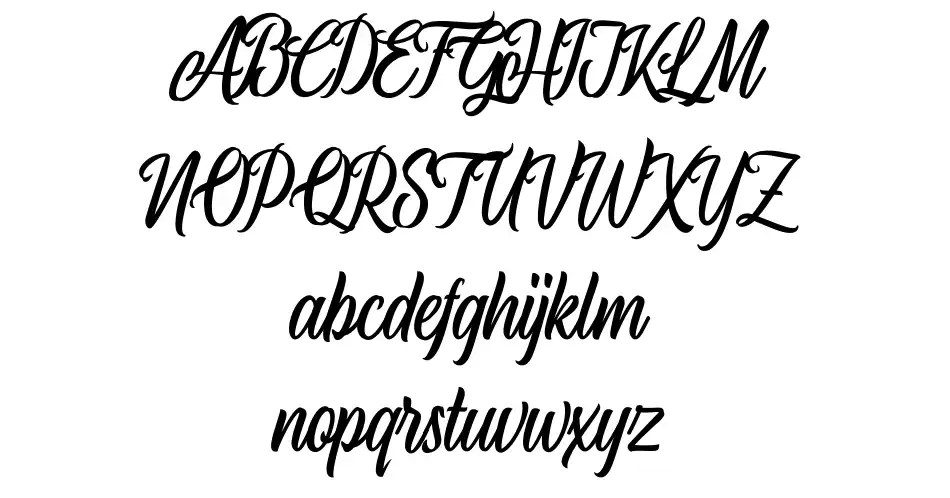
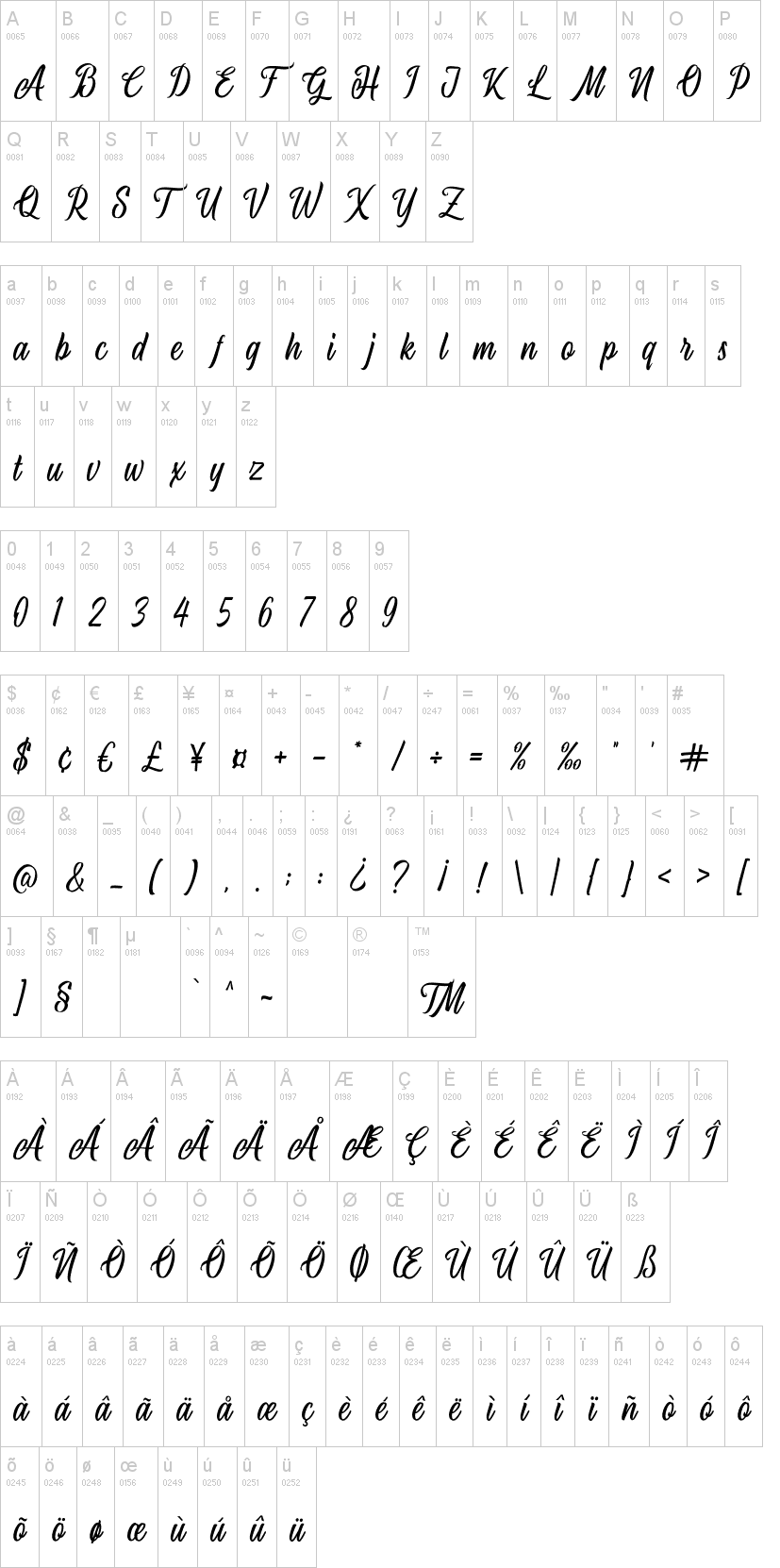
Web airline fonts browse and find fonts used in (or similar to) the logos of airline companies and brands. Due to its simple lettering, this font fits a variety of designs that require a fierce, strong touch. Are you looking for the.
Airplane script à € by 50fox studio. Web airline fonts browse and find fonts used in (or similar to) the logos of airline companies and brands. Web download 10,000 fonts for just $19.95.
Web Airplane Font Specimen Airplane Is A Bold And Authentic Display Font.
Web airplane font aug 5, 2021 airplane is a bold and authentic display font. English (5756 fonts) spanish (4974 fonts) french (4974 fonts) ukrainian (5334 fonts) russian (5503 fonts) jedi mode. The paper airplanes font has been downloaded 4,194 times.